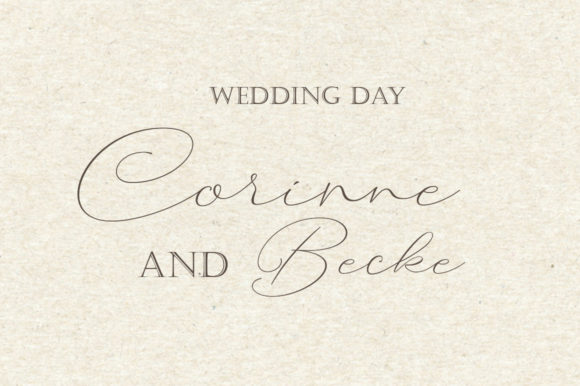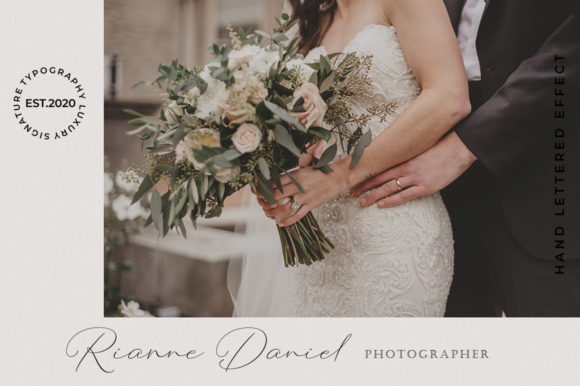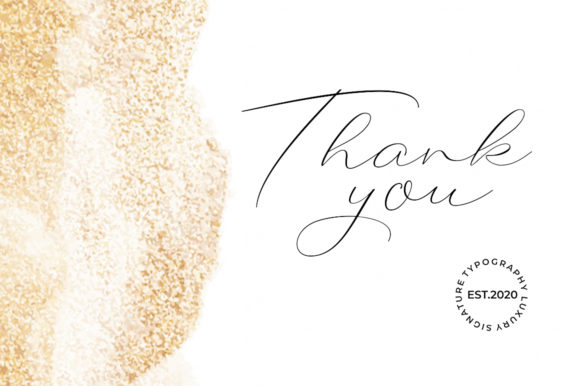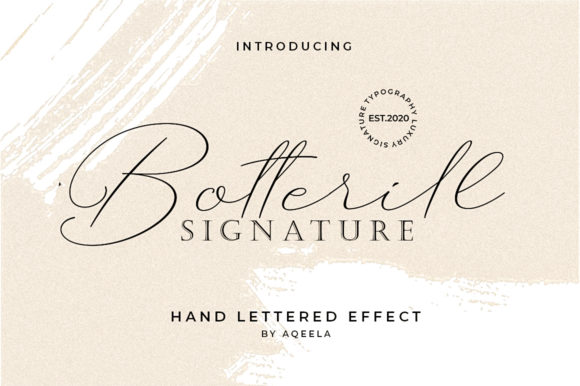
The Elegance of Botterill Font: A Designer’s Delight
I still remember the time I was working on a wedding invitation project, and my client asked for a font that exuded elegance and sophistication. I scoured the internet, tried out countless fonts, but none seemed to fit the bill. That was until I stumbled upon Botterill Signature, a beautiful handwritten font that has since become a staple in my design toolkit.
What is Botterill Font?
Botterill Signature is a flowing handwritten font that features a classy style, making it perfect for stationery, greeting cards, wedding invitations, and much more! This font is PUA encoded, which means you can access all the cute glyphs and swashes with ease. It also boasts a wealth of special features, including alternate glyphs and ligatures.
I’ve had the pleasure of working with Botterill Signature for a while now, and here’s what I think:
- ✨ Stunning Ligatures: The ligatures in this font are beautifully crafted, adding a touch of elegance to any design.
- ✅ Easy to Use: The PUA encoding makes it easy to access all the glyphs and swashes, even for those who aren’t font experts.
- 💕 Versatile: Botterill Signature works beautifully for a wide range of projects, from wedding invitations to social media graphics.
However, I do have to mention a few minor quirks:
- 🤔 Limited Multilingual Support: While Botterill Signature covers the basics, it may not be the best choice for projects that require extensive multilingual support.
- ⚠️ Occasional Kerning Issues: I’ve noticed that the kerning can be a bit off in certain situations, but this is relatively rare and usually easy to fix.
The Story Behind Botterill Signature
Botterill Signature was designed with elegance and sophistication in mind. The font’s creator aimed to craft a beautiful, flowing script that would be perfect for formal events and creative projects. The result is a stunning font that’s both versatile and eye-catching.
| What is Botterill Signature? | Botterill Signature is a flowing handwritten font that features a classy style, making it perfect for stationery, greeting cards, wedding invitations, and much more! |
| Is Botterill Signature PUA encoded? | Yes, Botterill Signature is PUA encoded, which means you can access all the cute glyphs and swashes with ease. |
| Does Botterill Signature support multilingual text? | While Botterill Signature covers the basics, it may not be the best choice for projects that require extensive multilingual support. |